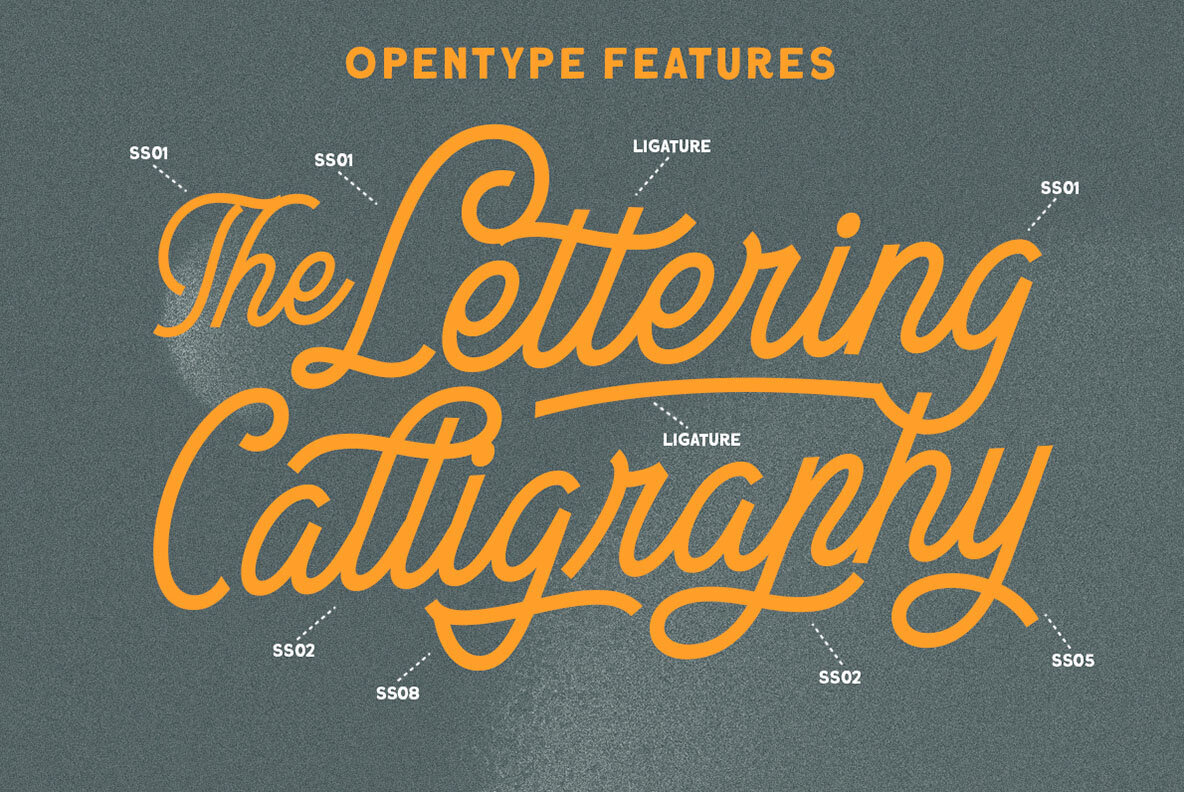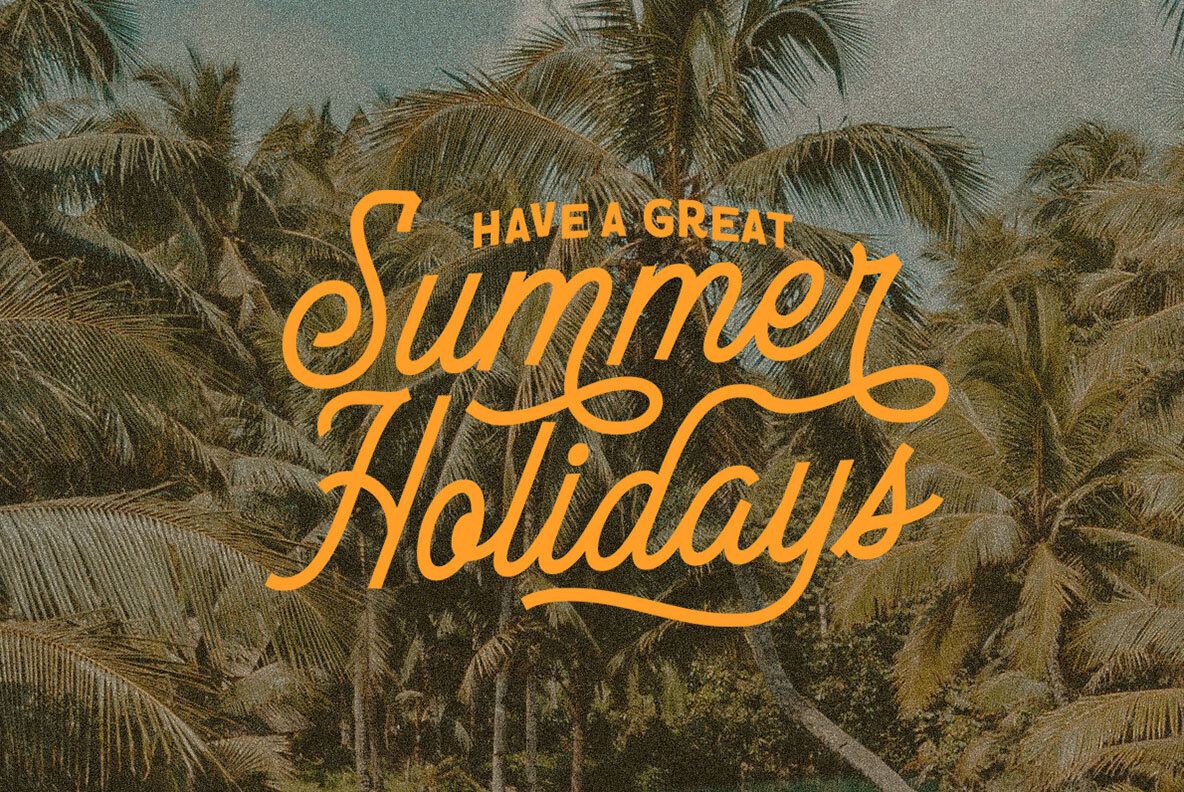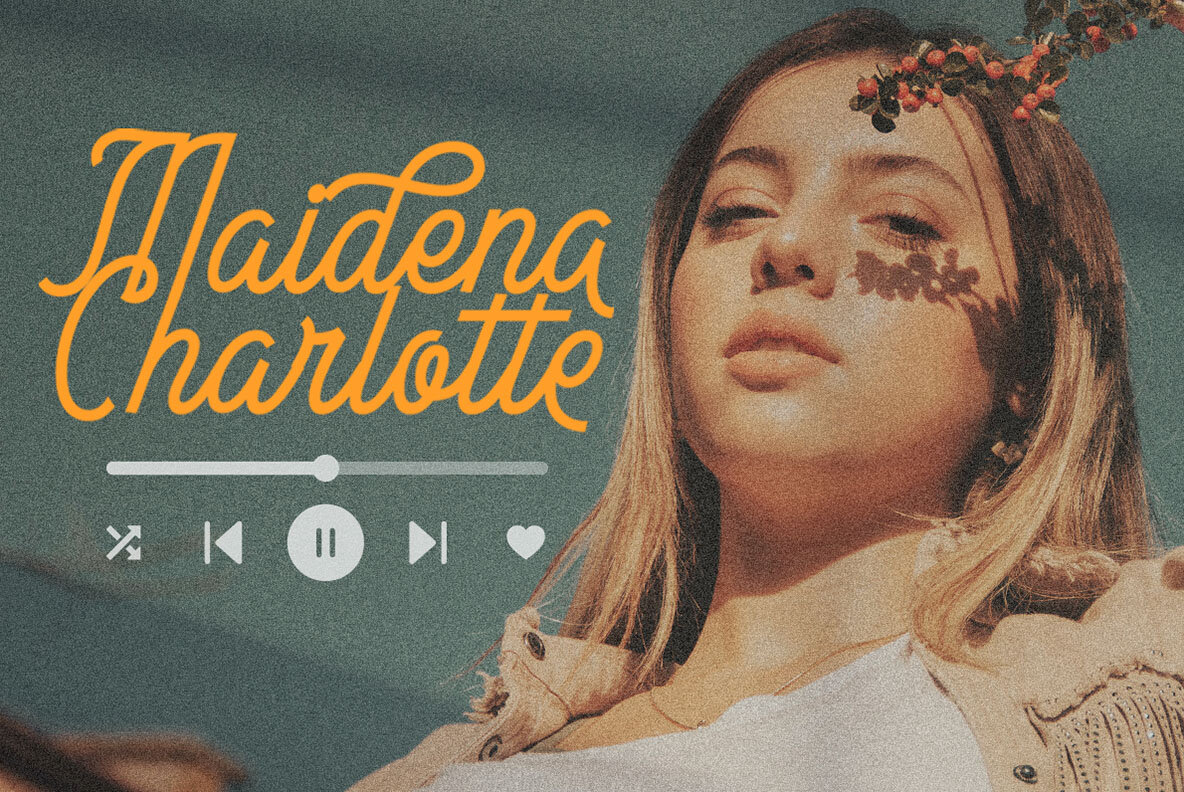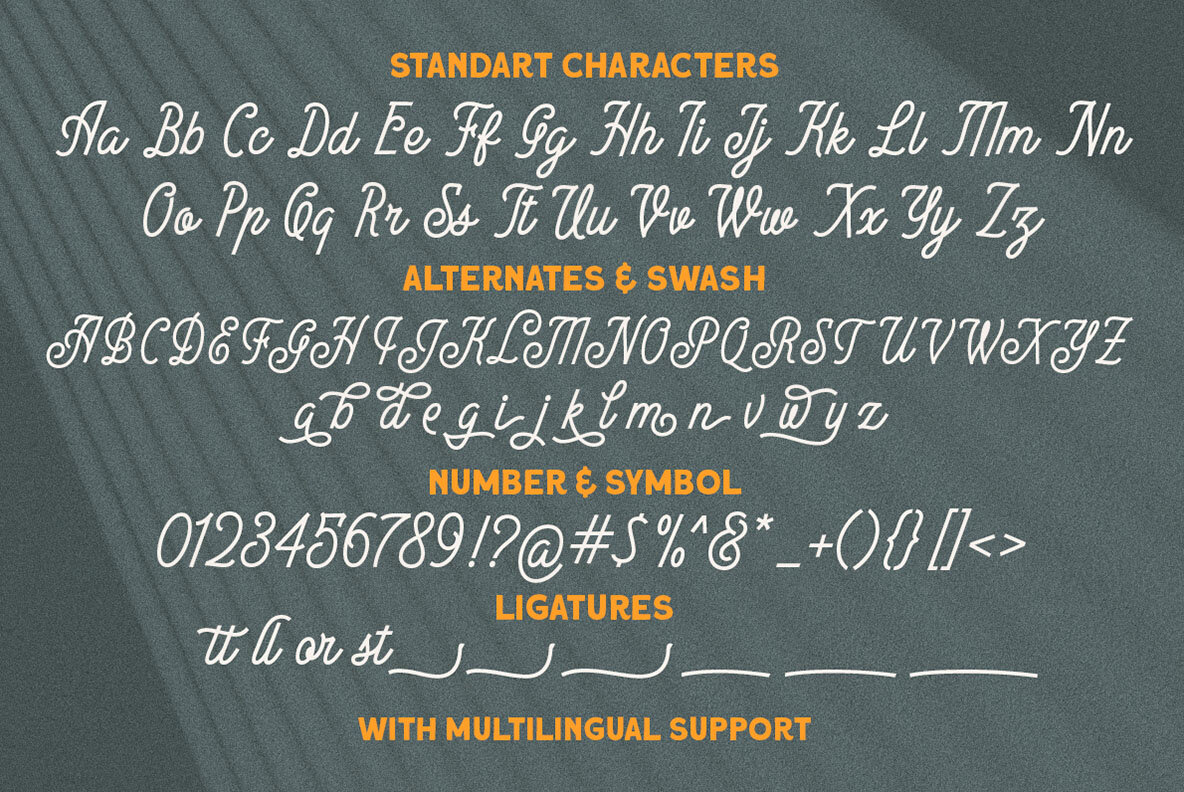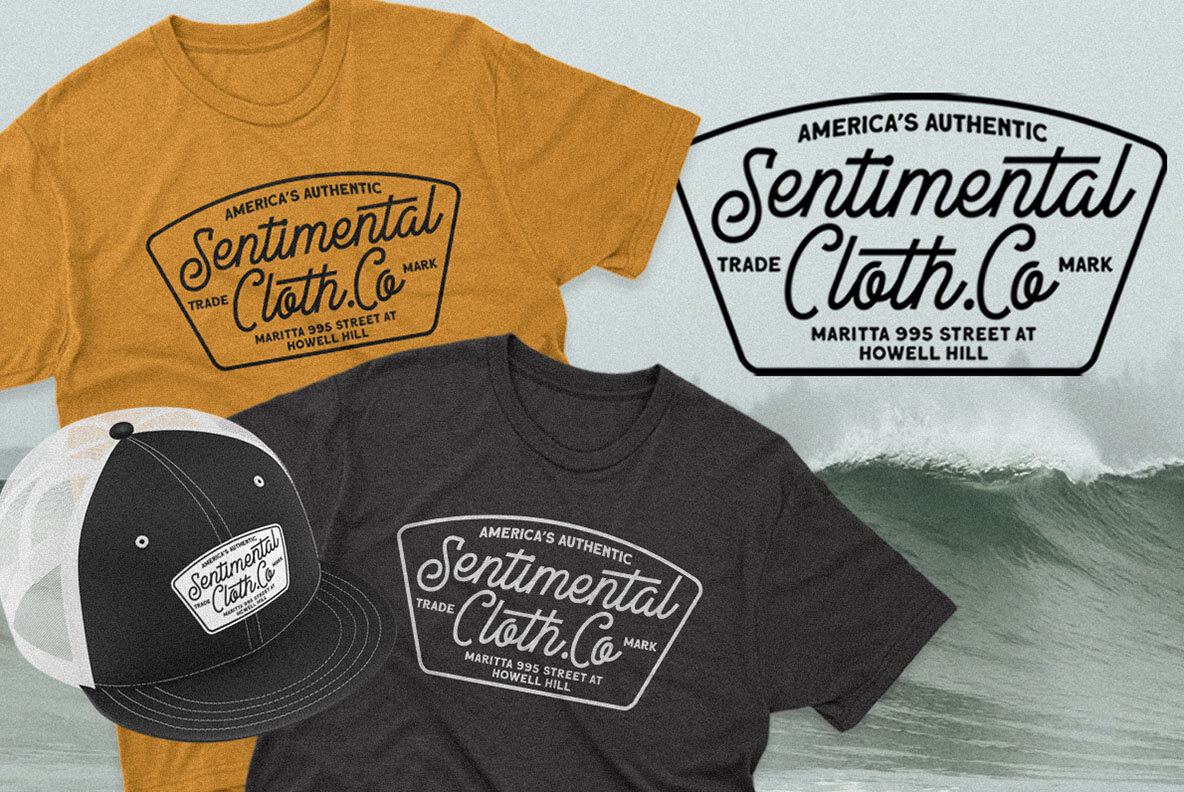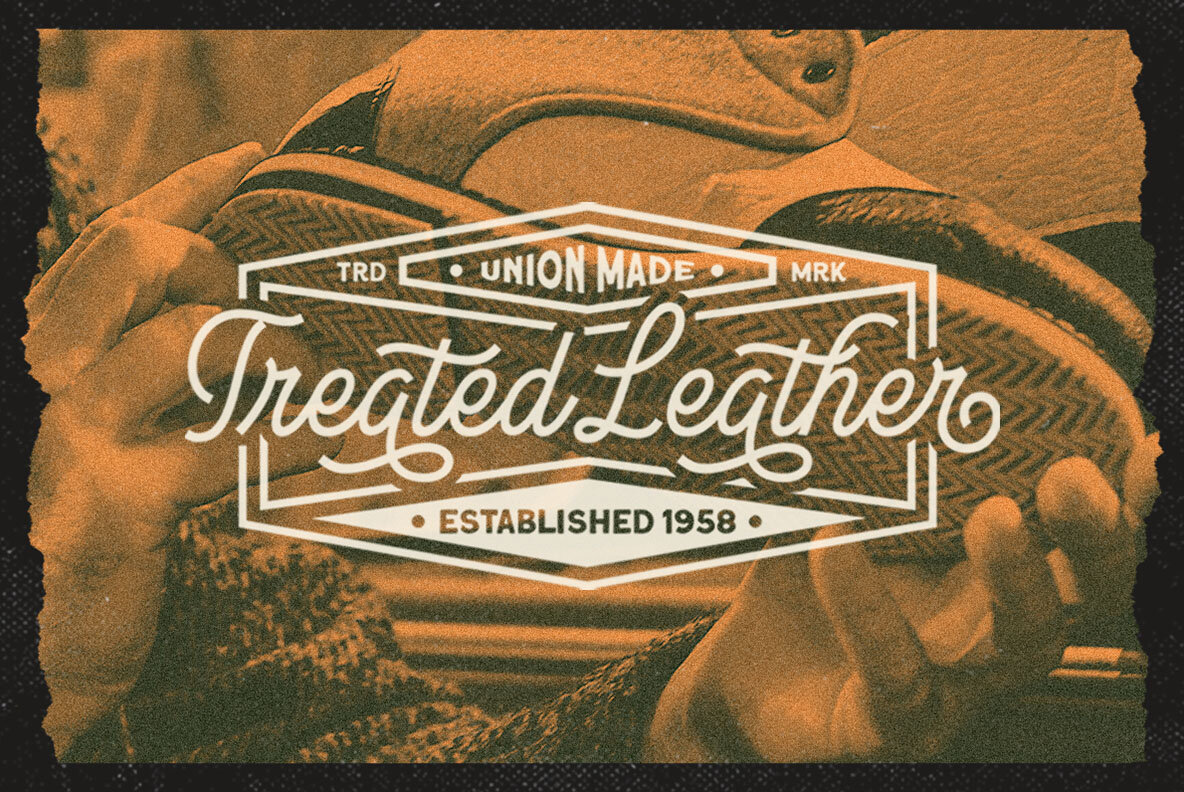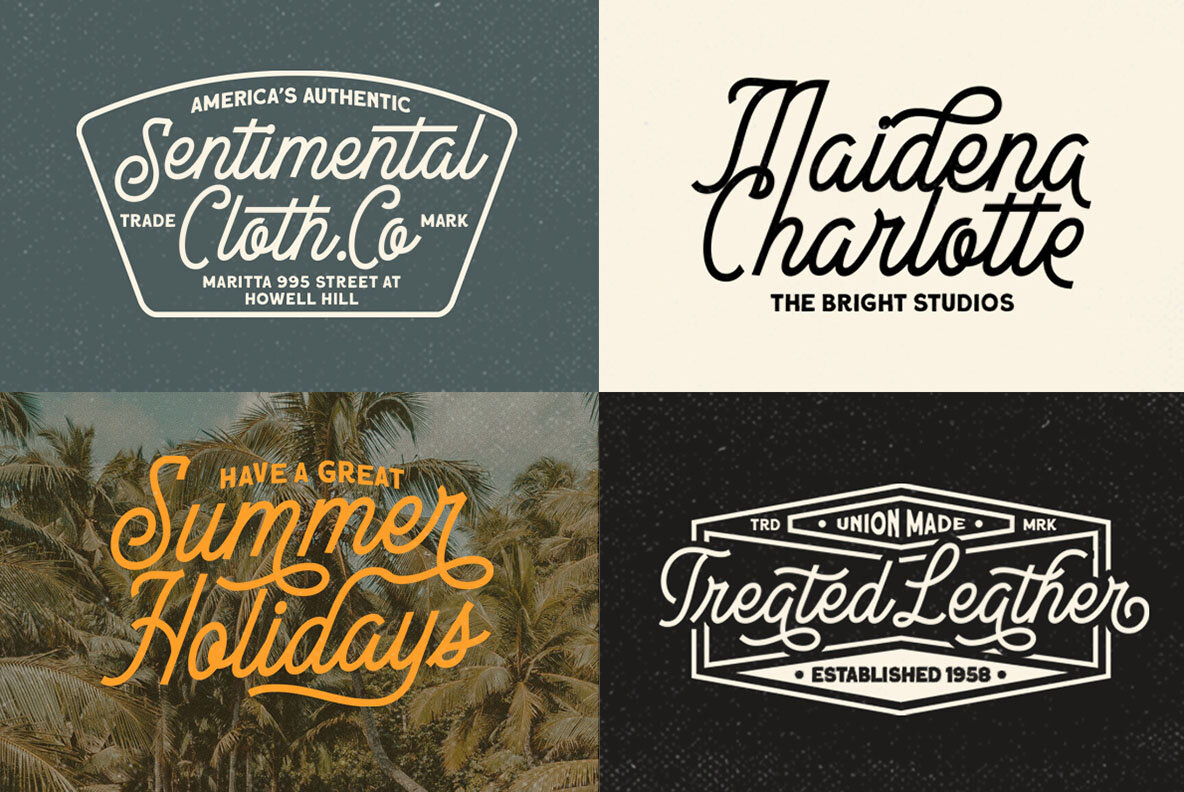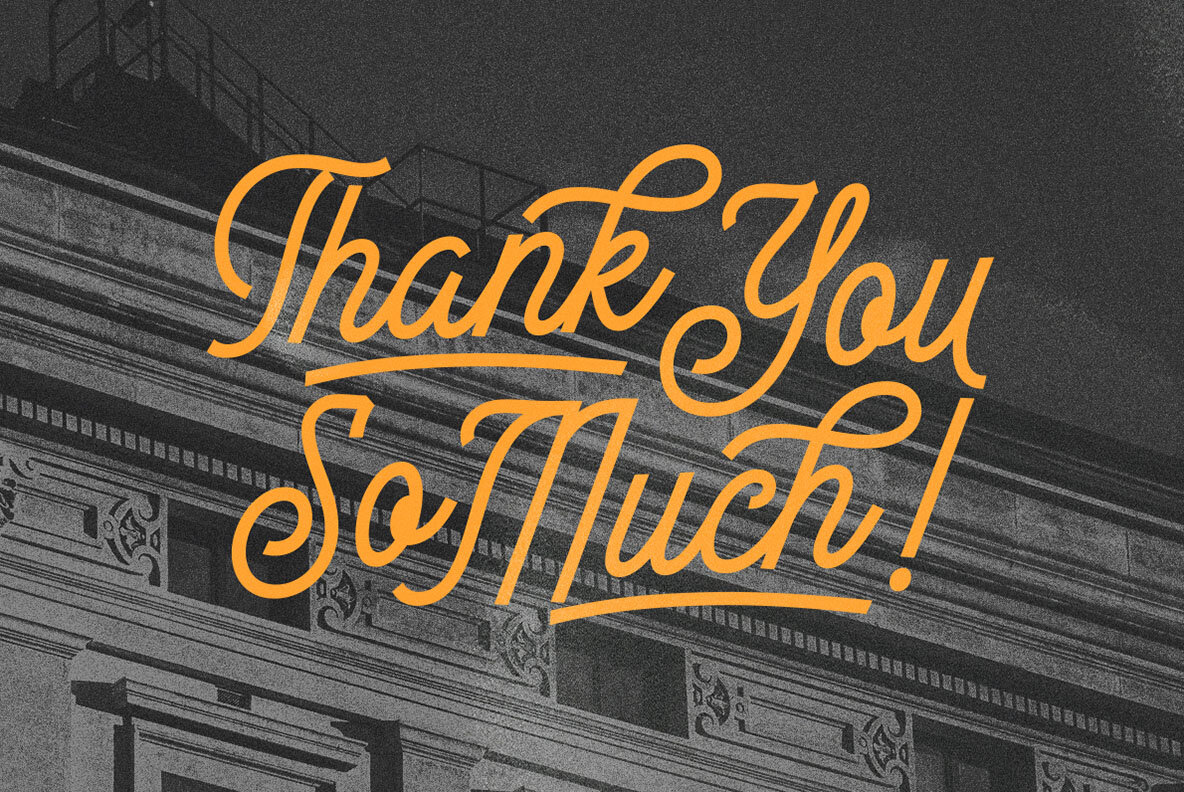
Andanta Font
Andanta Regular
Andanta is a monoline script with a casual and classic theme. This type of font perfectly made to be applied especially in logo, headline, signage and the other various formal forms such as invitations, labels, logos, magazines, books, greeting / wedding cards, packaging, fashion, make up, stationery, novels, labels or any type of advertising purpose. Features: